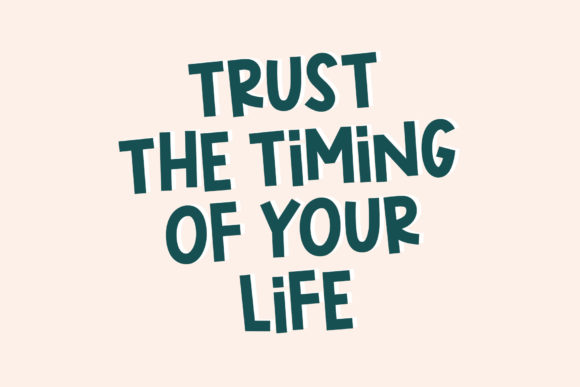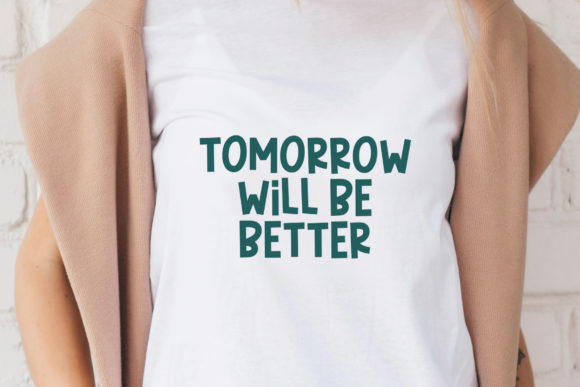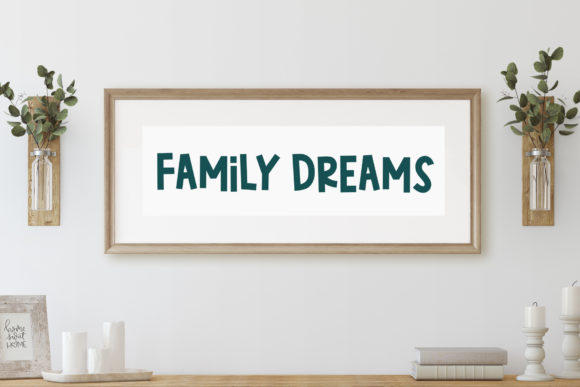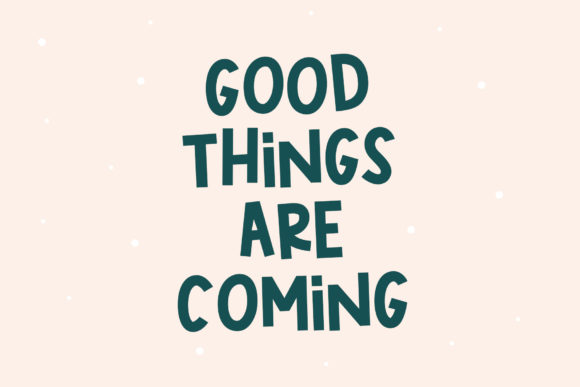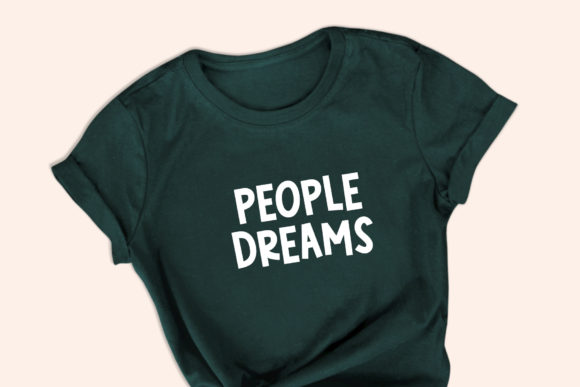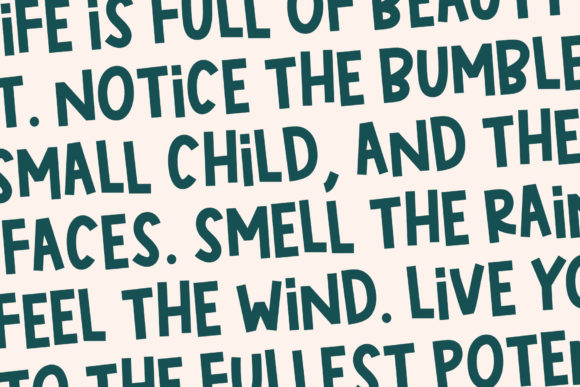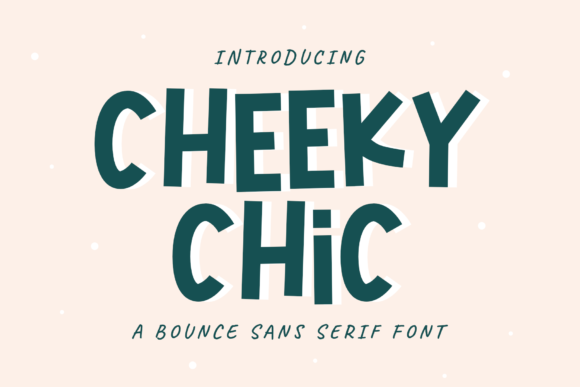
Introducing Cheeky Chic Font: The Ultimate Playful Display Font
Are you tired of using the same old fonts for your designs? Look no further! If you’re a designer, crafter, or simply someone who loves to create, we’ve got a treat for you. Say hello to Cheeky Chic Font, a fun, thick lettered, and playful display font that’s sure to add a lovely touch to your creations.
What is Cheeky Chic Font?
Cheeky Chic is a modern, bold, and eye-catching font that’s perfect for a variety of design projects. Its unique and quirky style makes it an excellent choice for cartoon-related designs, children’s games, and any creation that requires a playful and youthful vibe.
Key Features of Cheeky Chic Font
- Fun and Playful: Cheeky Chic Font is designed to bring a smile to your face. Its bold and thick letters are perfect for creating eye-catching headlines, titles, and captions.
- Thick Lettered: The font’s thick letters make it highly legible, even at smaller sizes. This feature ensures that your text remains clear and easy to read.
- Playful Display Font: Cheeky Chic is a display font that’s meant to be showcased. Use it to create stunning titles, headings, and captions that will make your designs stand out.
- Versatile: This font is incredibly versatile and can be used for a wide range of design projects, from children’s books and games to posters, flyers, and more.
Use Cases for Cheeky Chic Font
So, what can you use Cheeky Chic Font for? The possibilities are endless! Here are a few ideas to get you started:
- Cartoon-related designs: Create fun and engaging cartoon characters, posters, and animations with Cheeky Chic Font.
- Children’s games: Add a playful touch to your children’s games, puzzles, and activity sheets with this delightful font.
- Posters and flyers: Use Cheeky Chic Font to create eye-catching posters and flyers for events, promotions, and products.
- Social media graphics: Add a pop of personality to your social media graphics, including Facebook posts, Instagram stories, and Twitter headers.
- Crafting and DIY projects: Use Cheeky Chic Font to add a personal touch to your crafting and DIY projects, such as handmade cards, gift tags, and scrapbook pages.
Why Choose Cheeky Chic Font?
With so many fonts available, why choose Cheeky Chic Font? Here are just a few reasons:
- Unique style: Cheeky Chic Font has a one-of-a-kind style that’s sure to make your designs stand out.
- Easily readable: The font’s thick letters ensure that your text remains clear and easy to read.
- Highly versatile: Cheeky Chic Font can be used for a wide range of design projects, making it a great addition to your font library.
- Fun and playful: This font is designed to bring a smile to your face and add a playful touch to your designs.
In conclusion, Cheeky Chic Font is an excellent choice for designers, crafters, and anyone looking to add a playful touch to their creations. Its unique style, thick letters, and versatility make it perfect for a wide range of design projects. Whether you’re creating cartoon-related designs, children’s games, or simply want to add some personality to your social media graphics, Cheeky Chic Font is sure to impress. So why wait? Give Cheeky Chic Font a try today and bring a little bit of fun and playfulness to your designs!